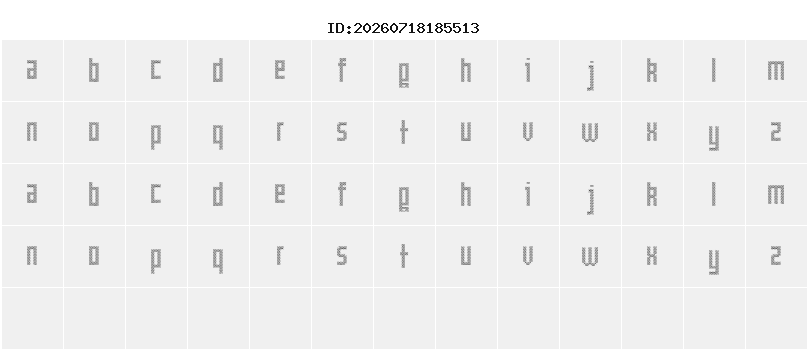
• Font Name: Cross
• Designer: Beno?t Sj?holm
About Cross.ttf
Cross.ttf is a modern, elegant sans-serif font designed for ultimate readability and visual harmony. Perfect for branding, headlines, web design, and print materials.